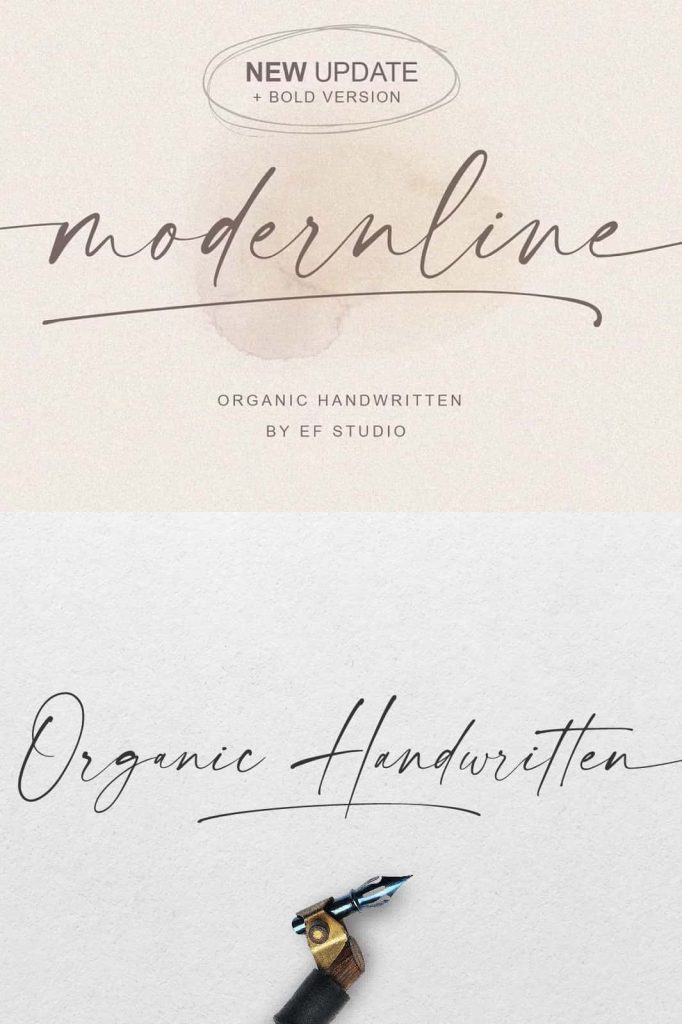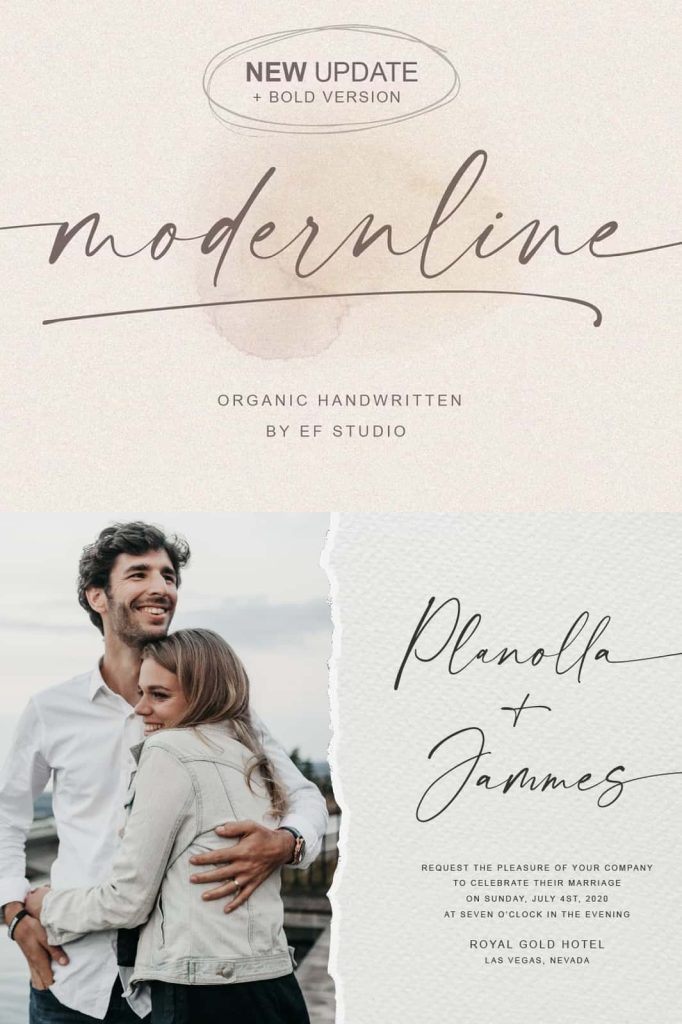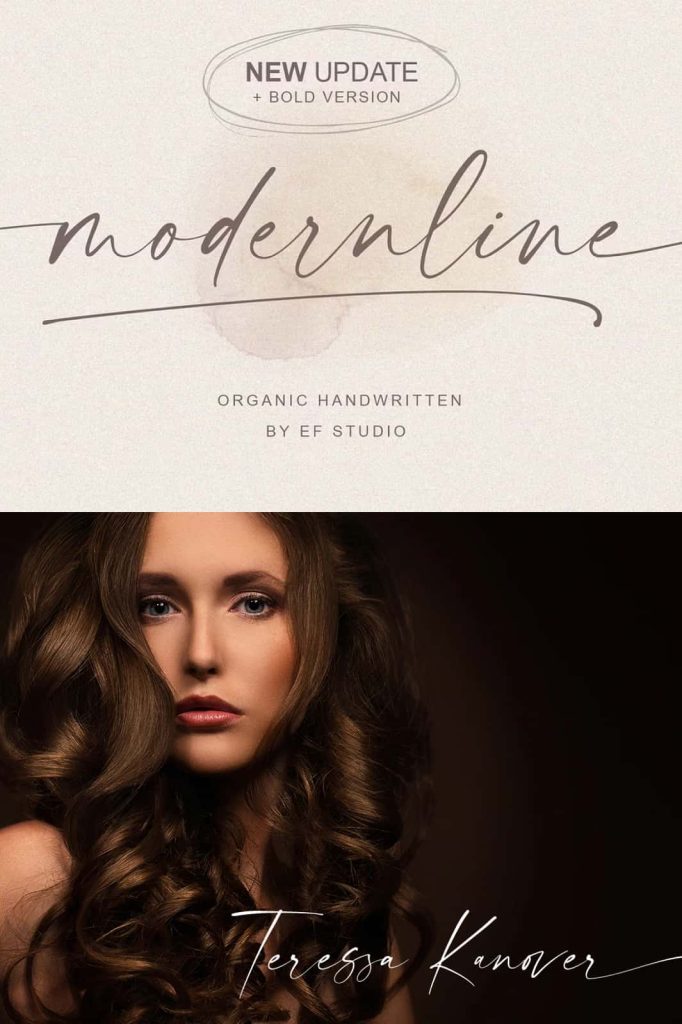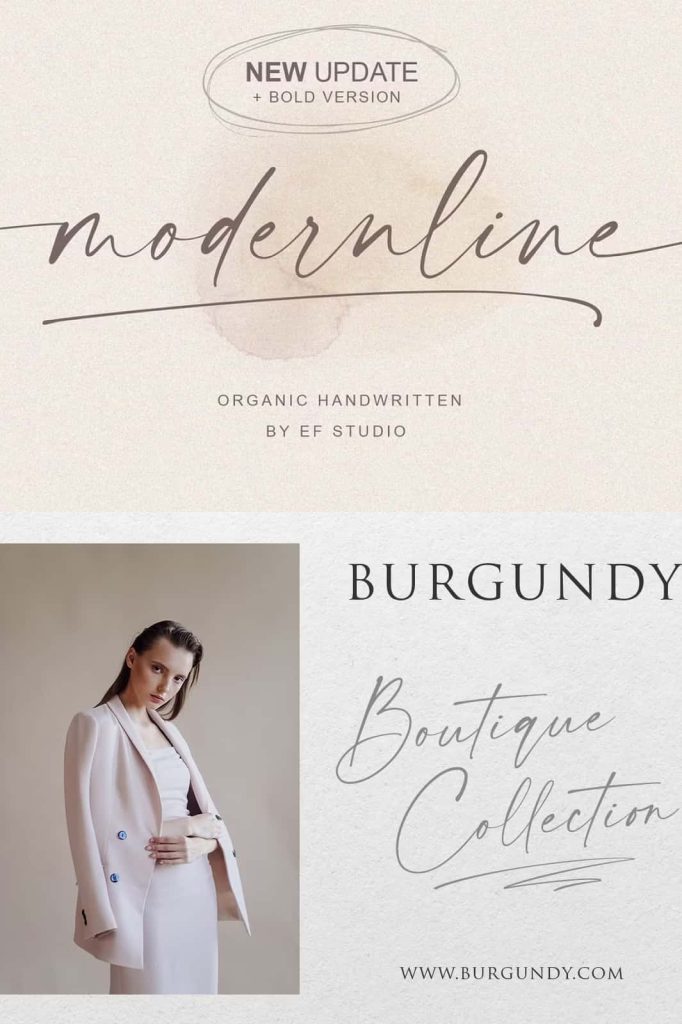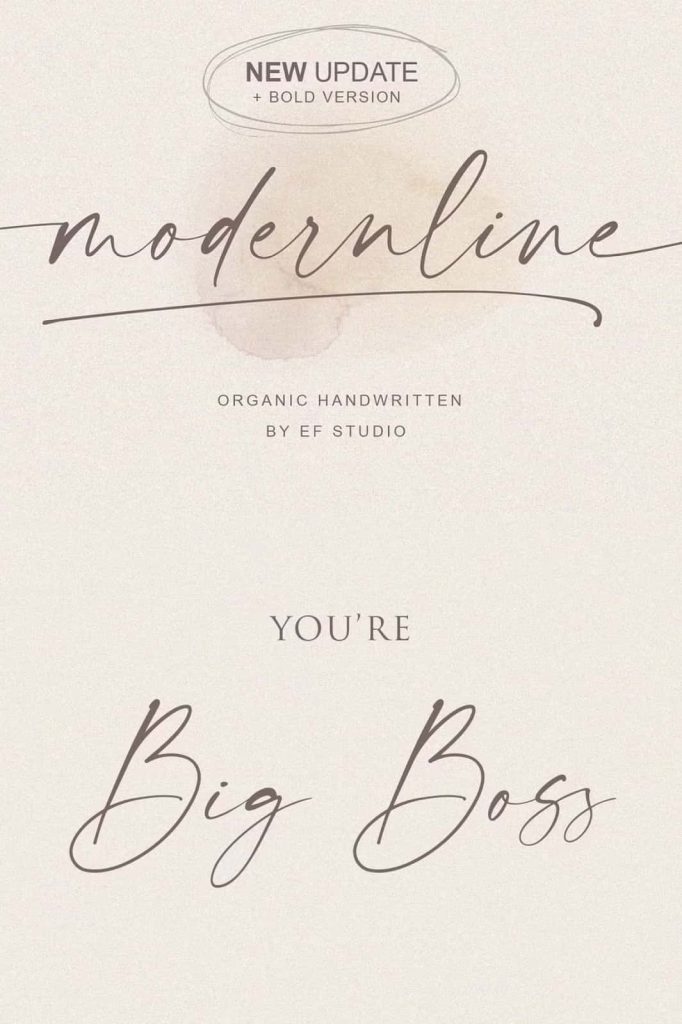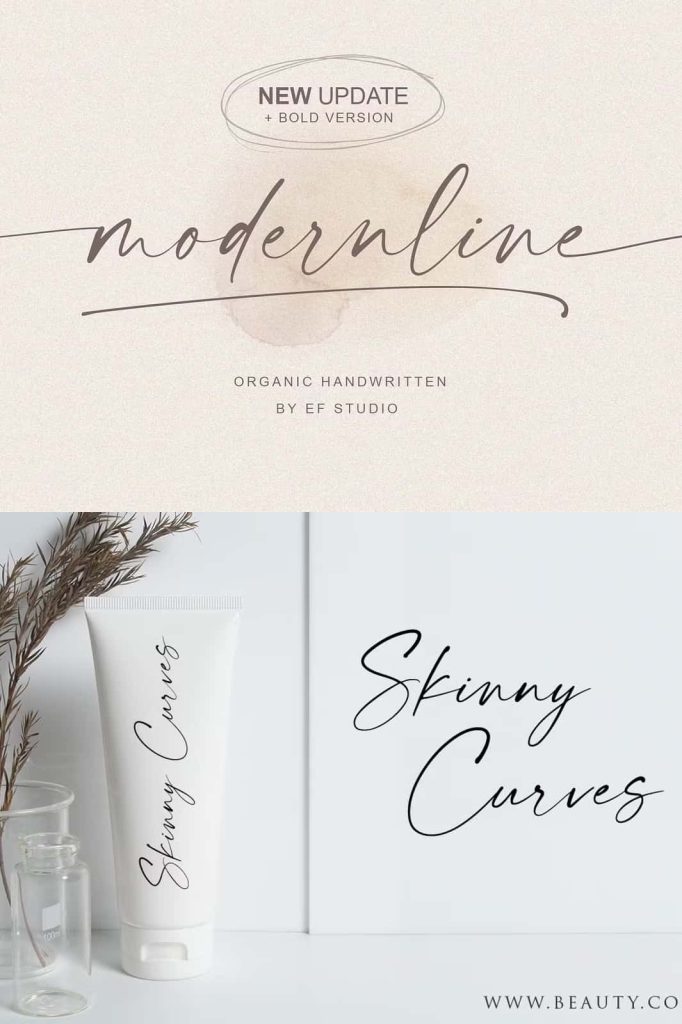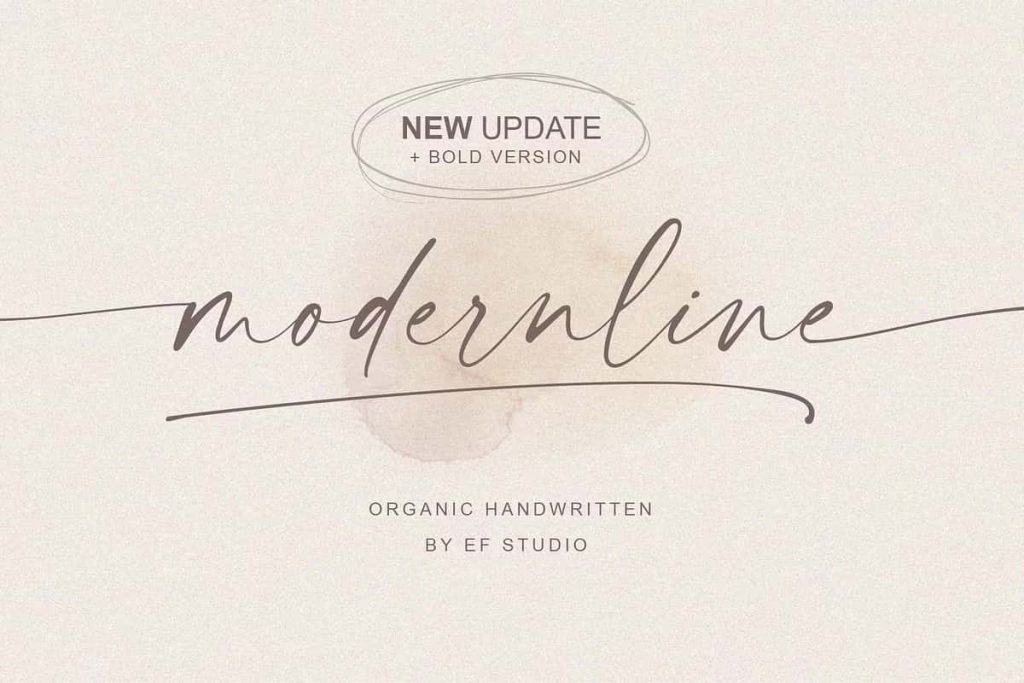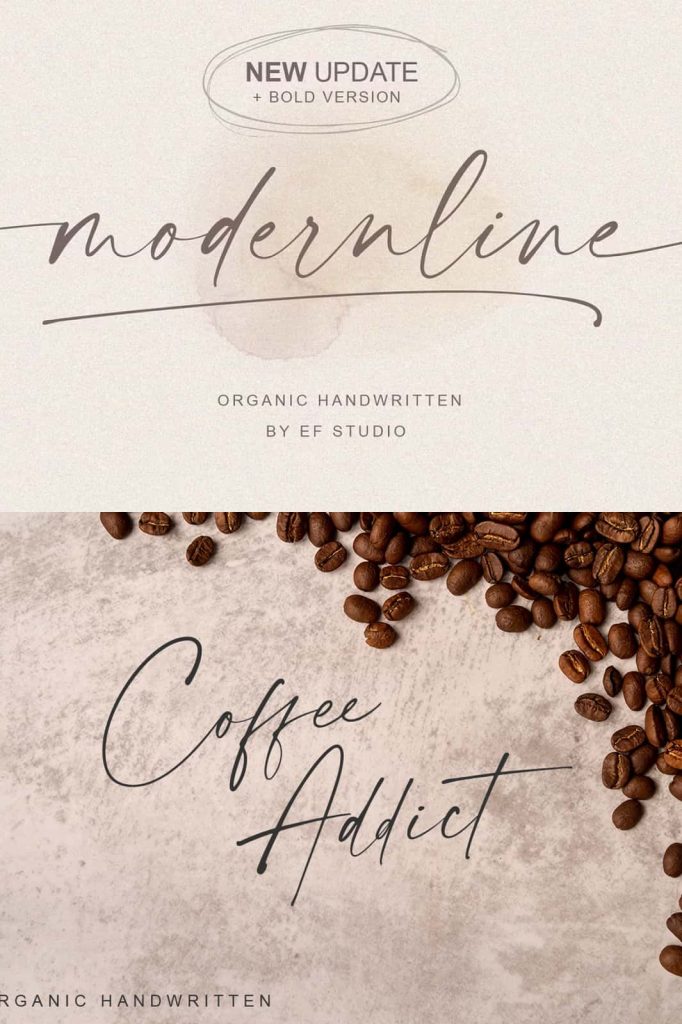
Modernline: An Organic Handwritten Font for Elegant and Modern Design
Modernline is an organic handwritten font designed to bring authenticity, elegance, and personality to your creative projects. It combines a natural handwritten flow with a clean modern structure, making it highly versatile for both personal and professional use. This font captures the charm of hand lettering while maintaining clarity and readability across different applications.
With its balanced letterforms and smooth strokes, Modernline adds a personal touch without sacrificing modern design standards. It works seamlessly across digital and print media, helping designers communicate warmth, creativity, and individuality in every project.
Authentic Handwritten Style with a Modern Feel
Modernline delivers an organic handwritten appearance that feels natural and expressive. The letterforms flow smoothly, mimicking real handwriting while maintaining consistent spacing and proportions. This balance ensures that the font looks handcrafted yet polished, making it suitable for both artistic and corporate branding projects.
The font’s simplicity allows it to blend effortlessly into contemporary layouts. Its clean structure makes it easy to read, while subtle irregularities preserve the human touch that makes handwritten fonts appealing.
Two Weights for Flexible Typography
Modernline comes in two weights: regular and bold. These weights give designers flexibility to create hierarchy, emphasis, and contrast within a single type family. Use the regular weight for body text or subtle accents, and the bold weight for headlines, logos, and key messages.
This dual-weight system makes Modernline suitable for complete branding systems, where consistency and variation must coexist in a cohesive visual identity.
Comprehensive Character Set and OpenType Features
Modernline includes a full set of uppercase and lowercase letters, numerals, and punctuation. It also supports multilingual characters, allowing designers to use the font in international projects without compatibility issues.
The font features lowercase beginning and ending swashes, ligatures, and extra swashes. These OpenType features enable designers to create elegant, custom-looking typography with minimal effort. Swashes add decorative flourishes, while ligatures improve the natural flow of letter combinations.
Ideal for Branding, Invitations, and Packaging
Modernline is well suited for branding projects, especially logos, personal brands, and creative businesses that want to communicate authenticity and approachability. The handwritten style creates a strong emotional connection with audiences, making brands feel personal and trustworthy.
For wedding invitations and event stationery, Modernline adds elegance and romance. The swashes and flowing letterforms create a sophisticated aesthetic that works beautifully on invitations, save-the-dates, greeting cards, and signage.
Modernline also performs exceptionally well in product packaging and promotional materials. Its modern handwritten look enhances labels, tags, and marketing graphics, helping products stand out on shelves and online marketplaces.
Versatile for Digital and Print Applications
Whether used on websites, social media graphics, or printed materials, Modernline maintains clarity and style. The font scales well at different sizes, ensuring legibility on screens and in print. This versatility makes it a practical choice for designers working across multiple platforms.
Modernline pairs easily with minimalist sans-serif or classic serif fonts, allowing designers to build balanced typographic systems that combine structure with personality.
Why Choose Modernline?
Modernline offers a perfect blend of modern simplicity and handwritten authenticity. Its comprehensive character set, advanced OpenType features, and dual weights provide designers with a powerful toolkit for creative typography. The font supports a wide range of design needs, from personal projects to professional branding systems.
If you want a handwritten font that feels natural, modern, and versatile, Modernline delivers a reliable solution that elevates your typography and enhances visual storytelling across all design applications.